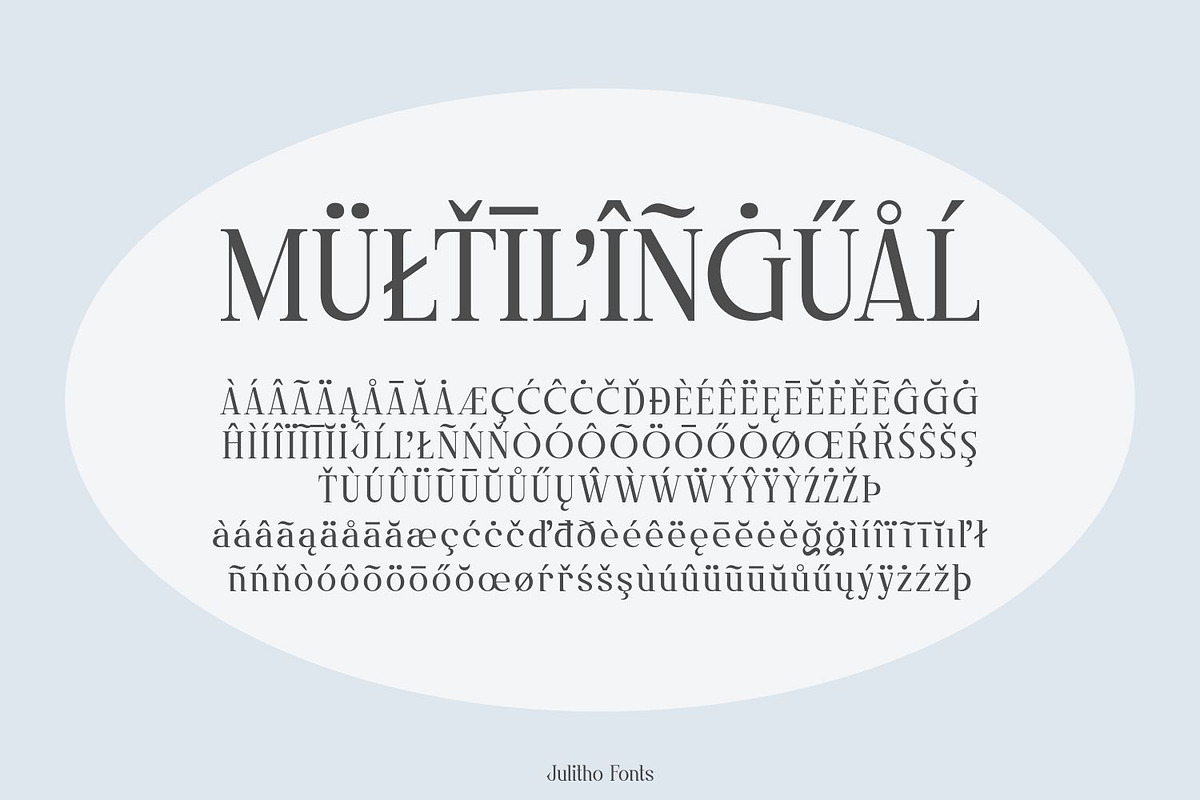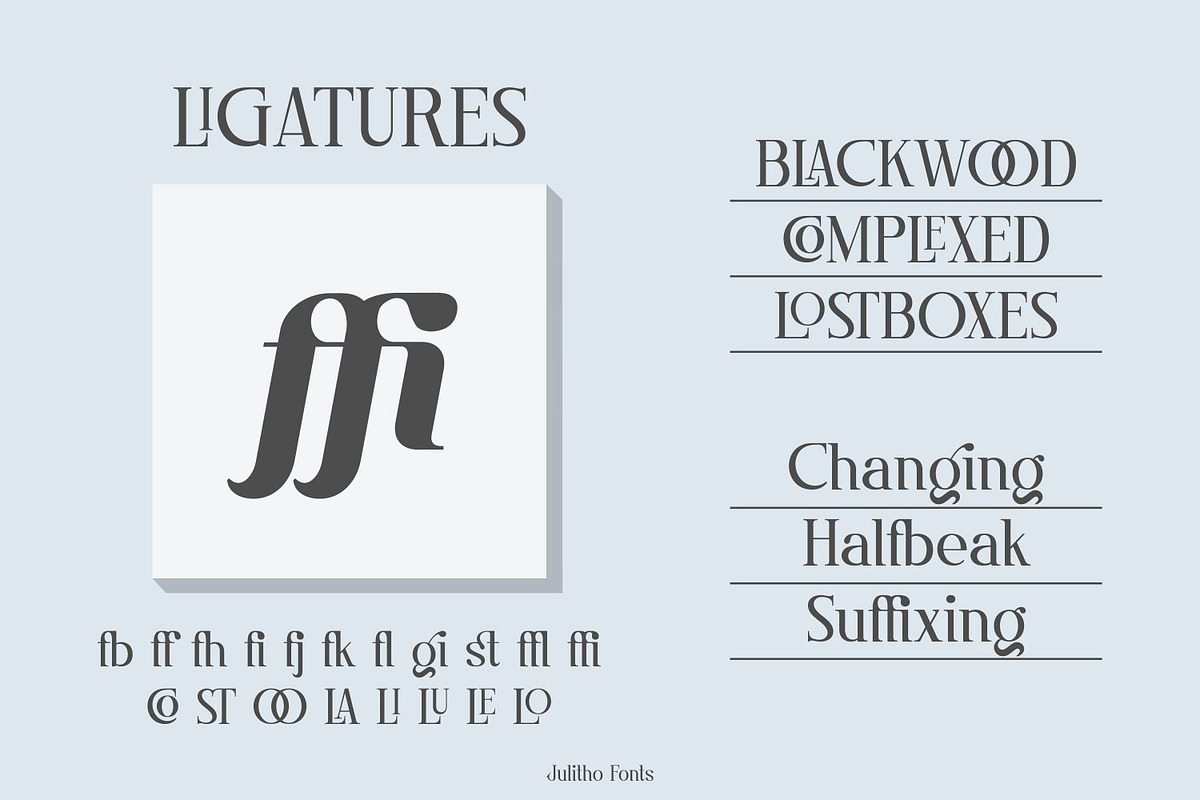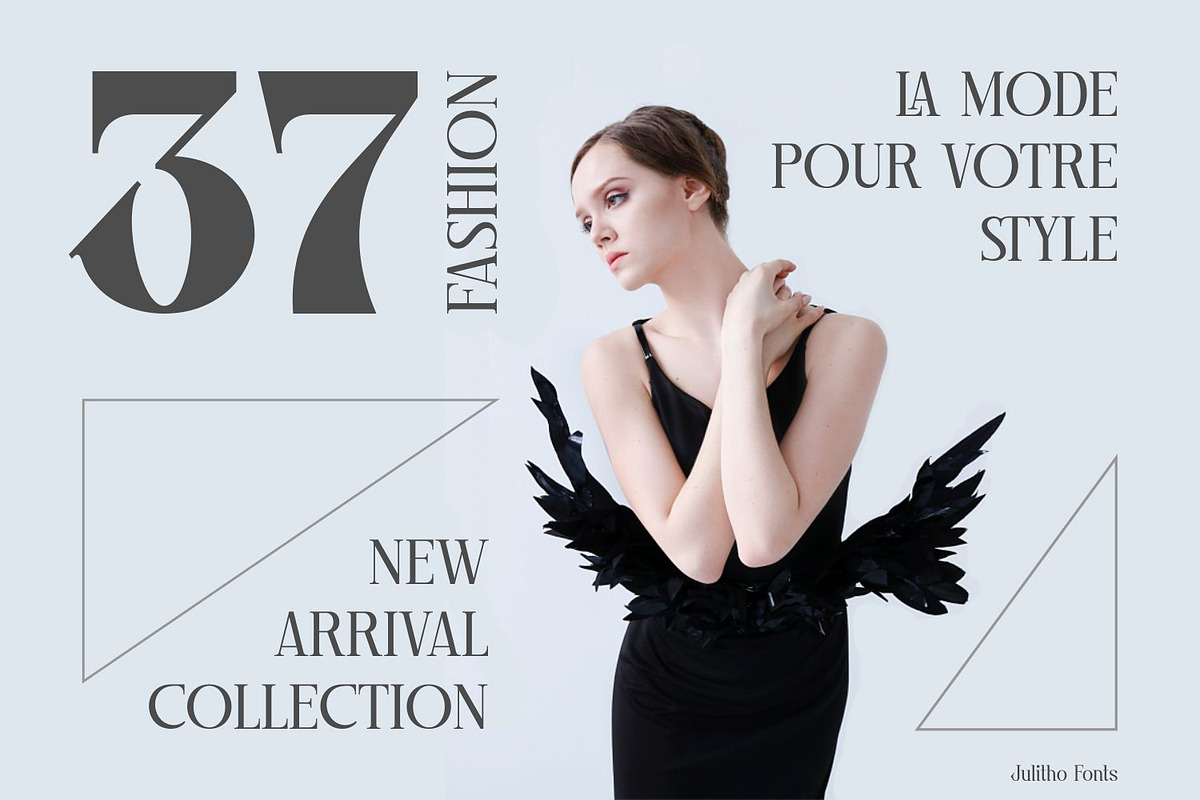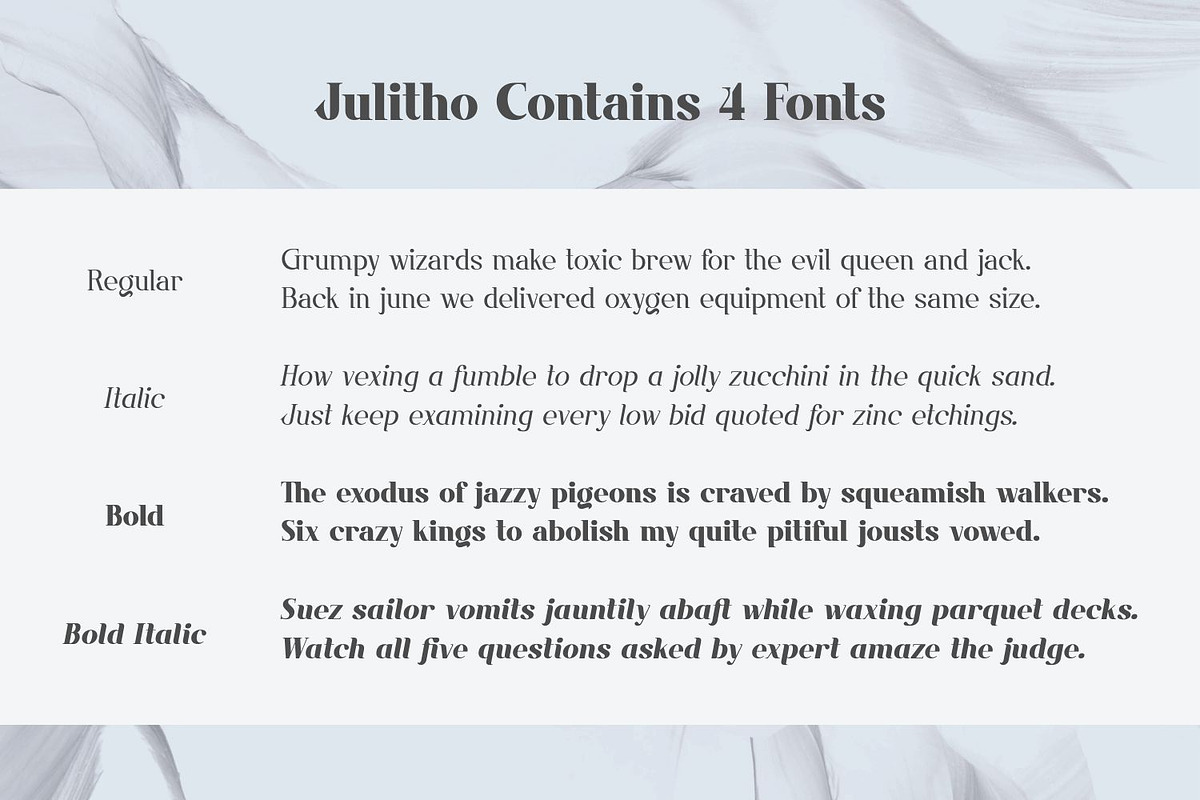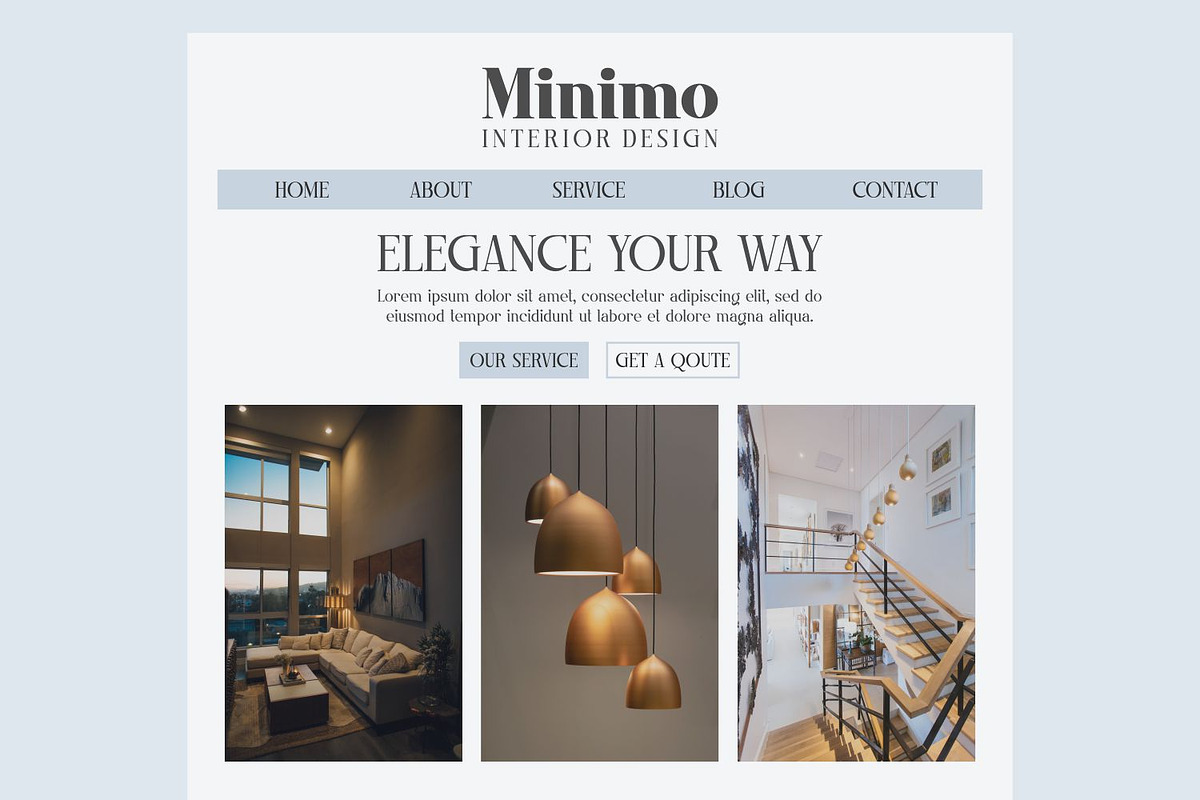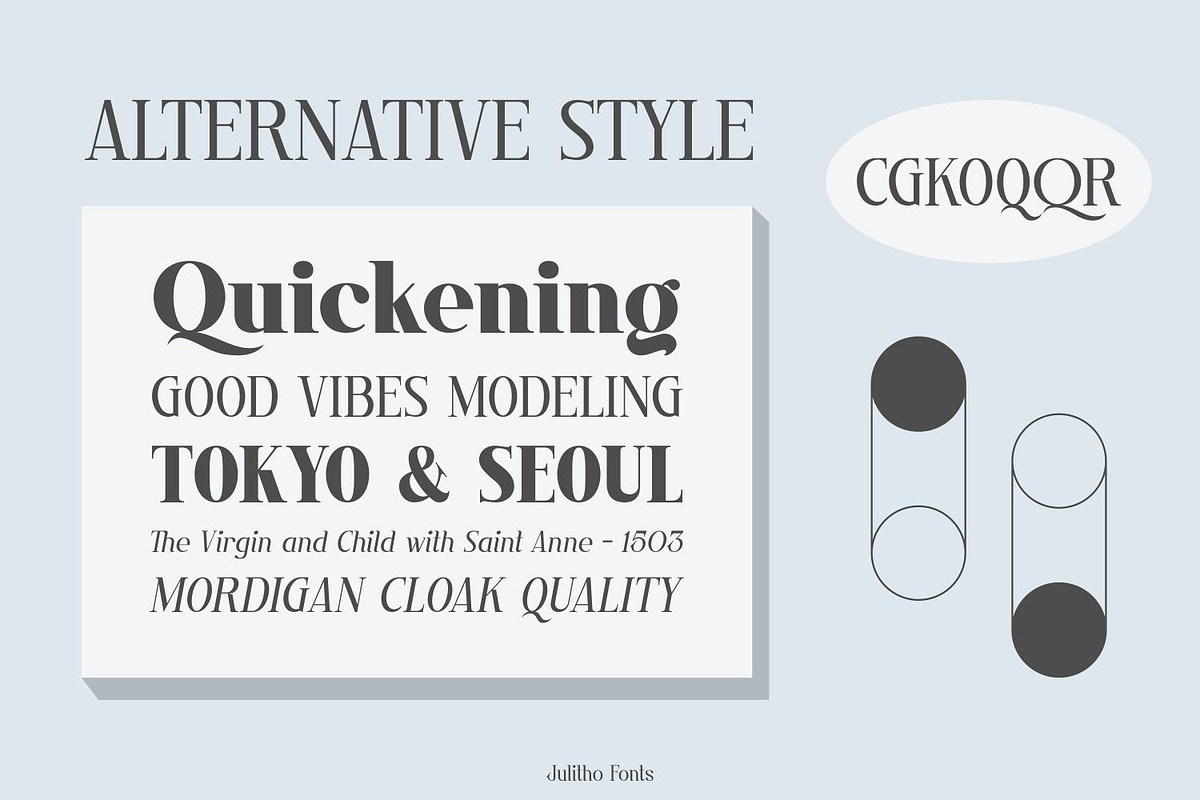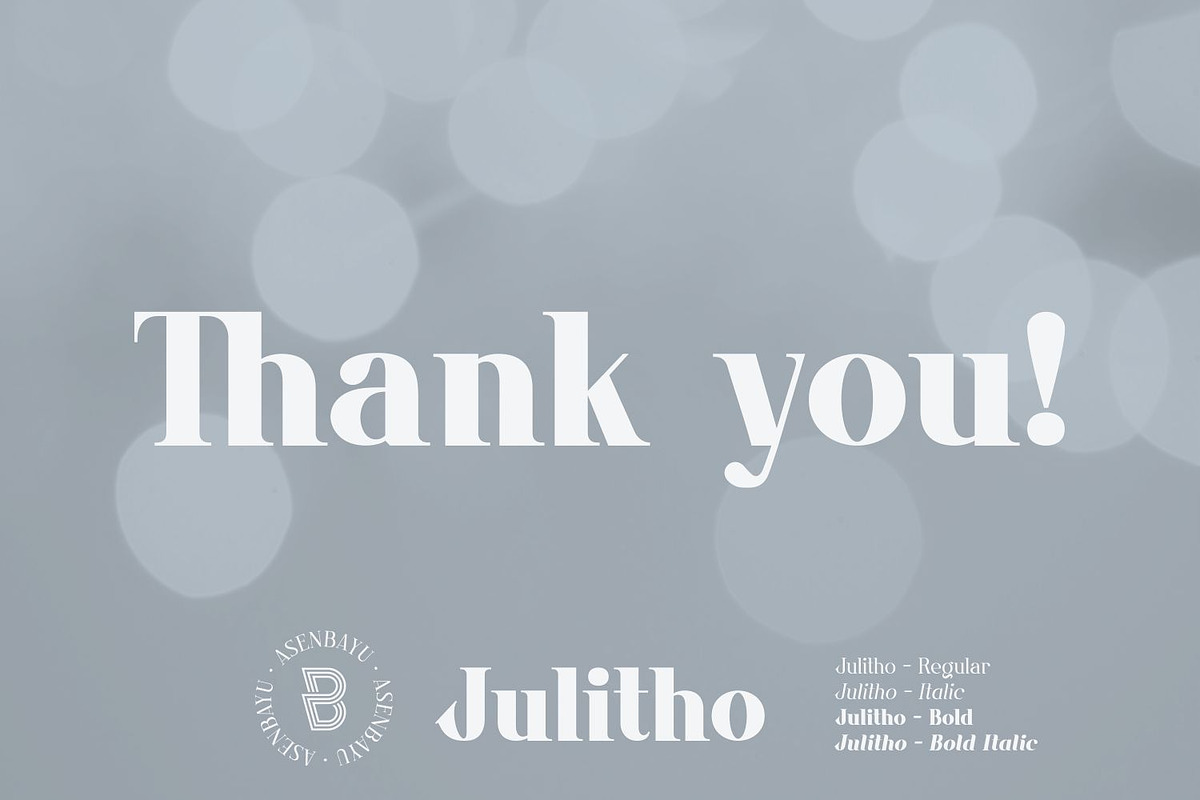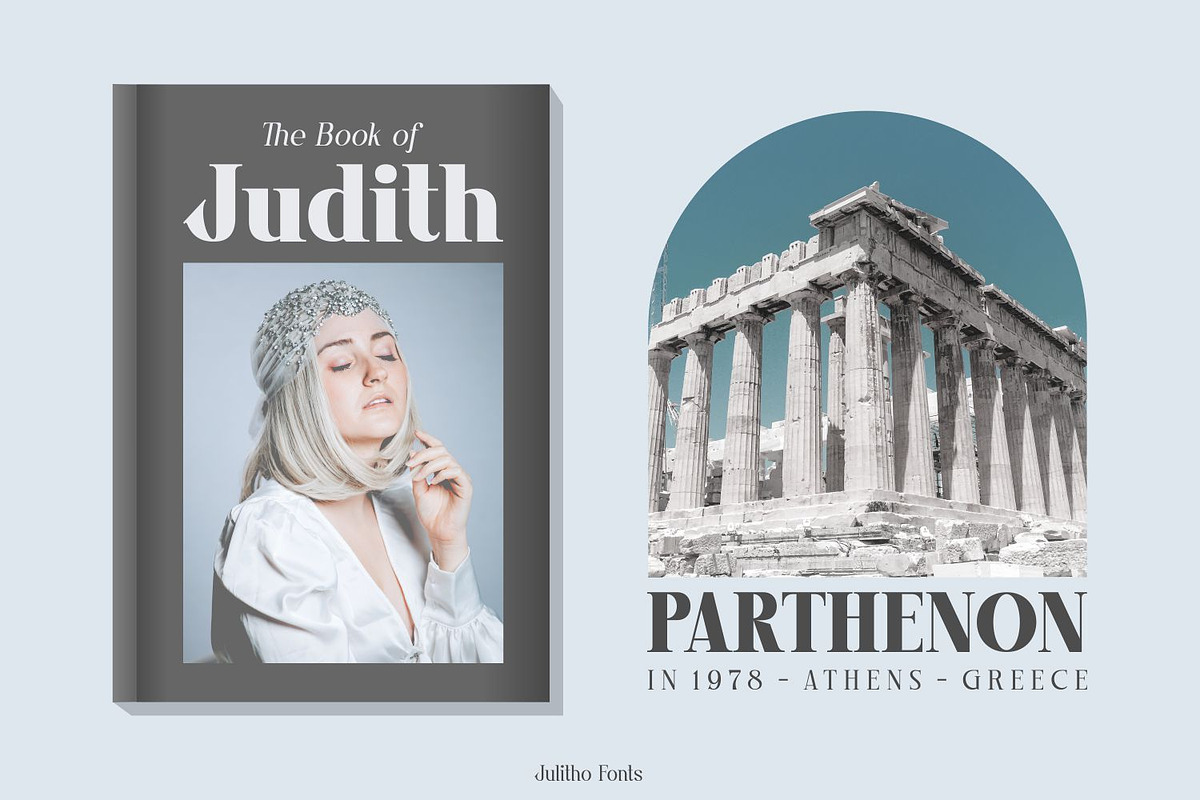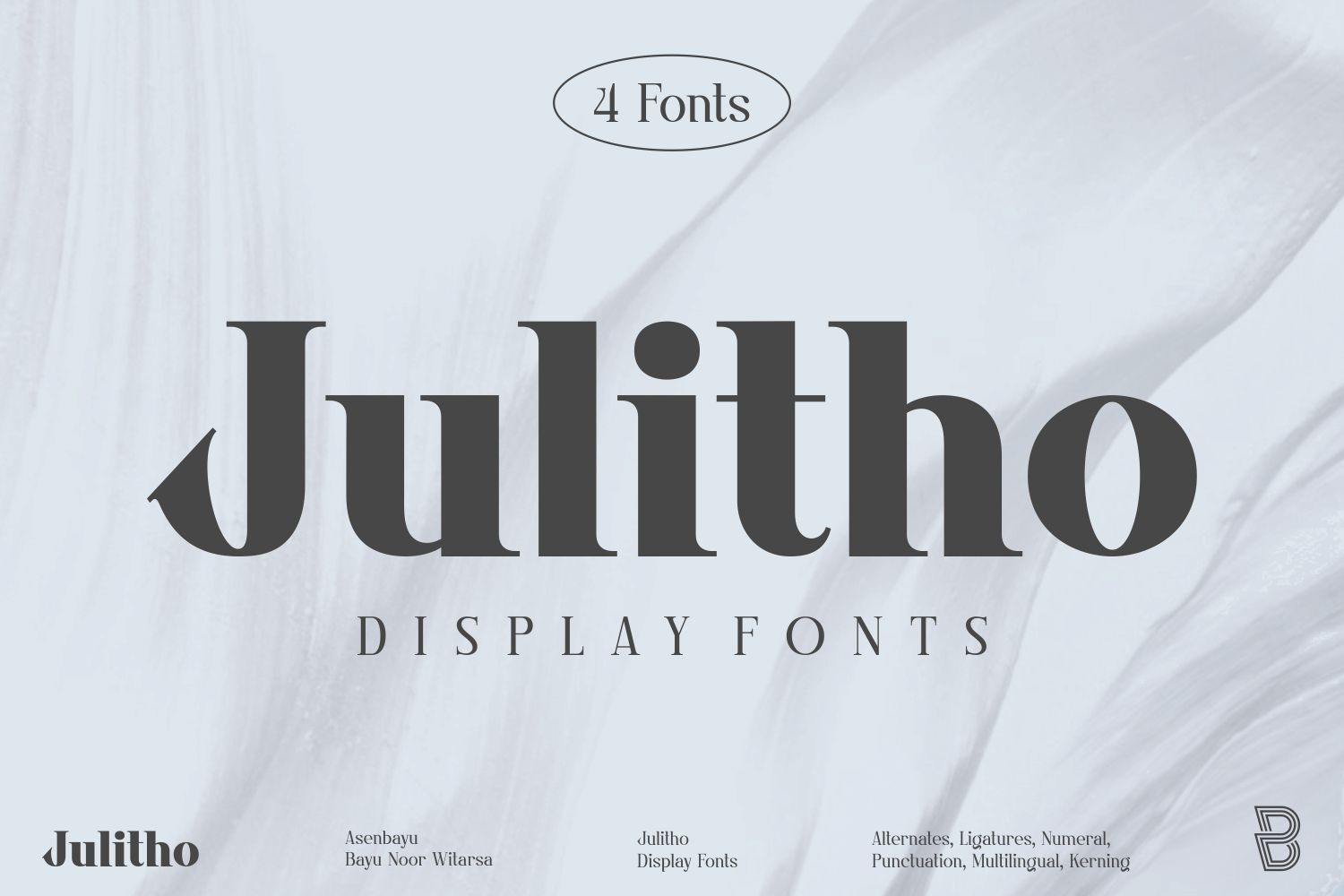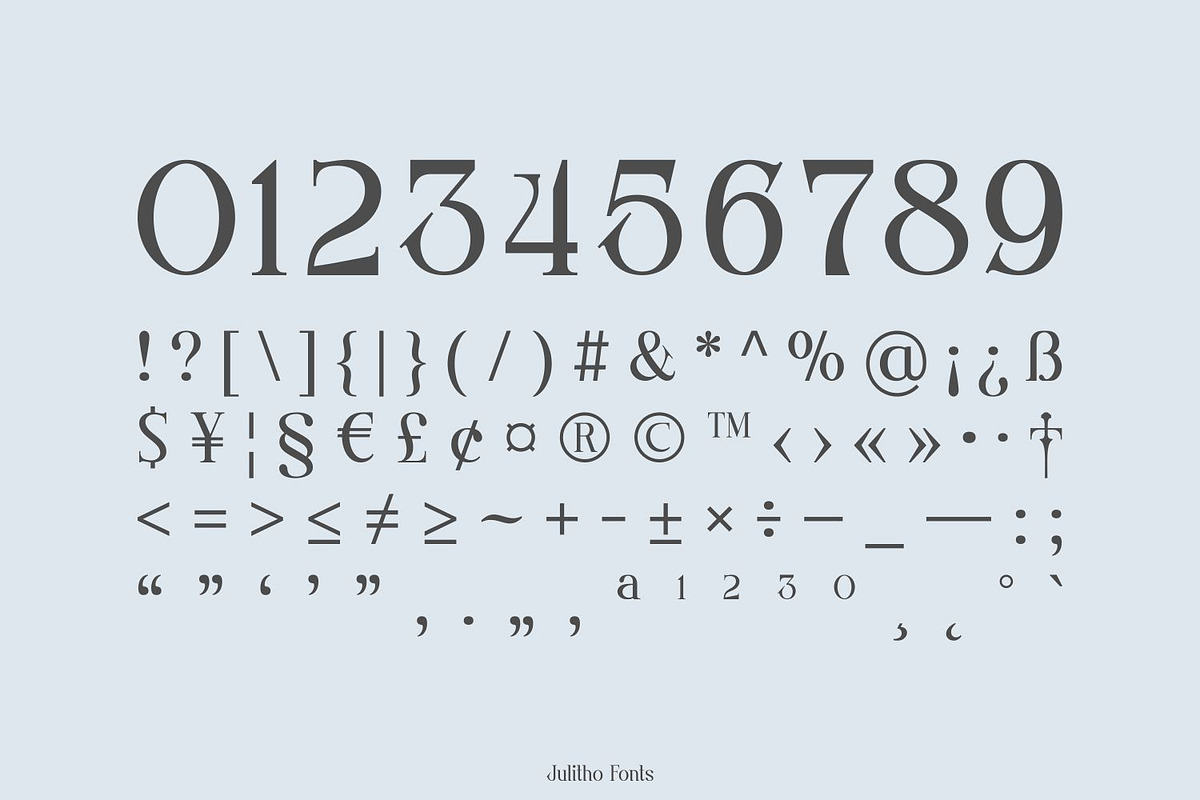
Julitho Fonts Family
Julitho are demi-serif display fonts that have a strong and elegant appearance. Julitho comes from the word "July" to represent beautiful and "litho" which represents strength and integrity. Demi-serif is emphasized for lowercase letters that have one side of the serif. You can use these fonts in high-end, vintage, modern and classic designs. These fonts are perfect for a variety of projects, such as branding, poster displays, logo designs, magazine, headline, sticker and more.
Julitho fonts feature opentype, kerning, alternative style and ligature. Julitho include uppercase letters, lowercase letters, numeral, punctuation and multilingual support.